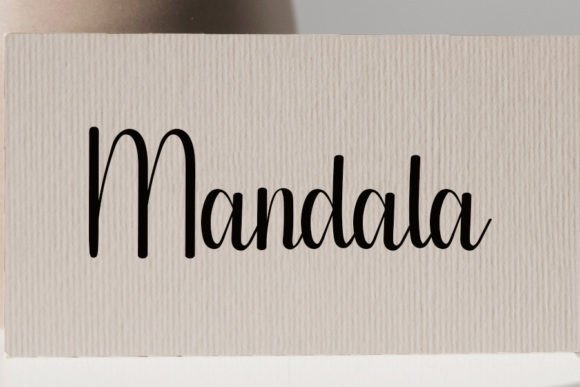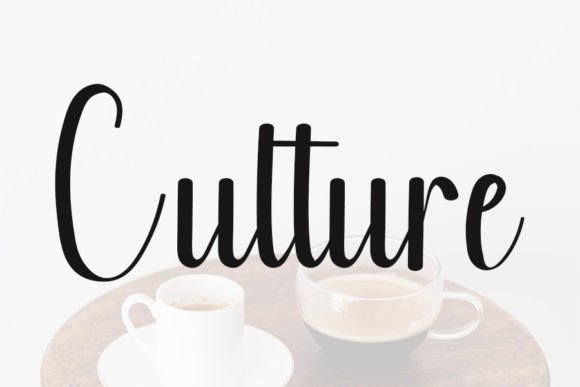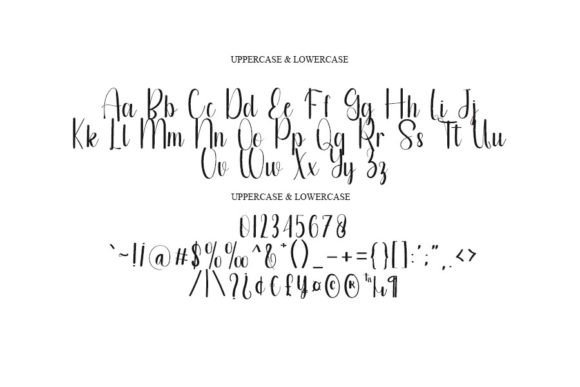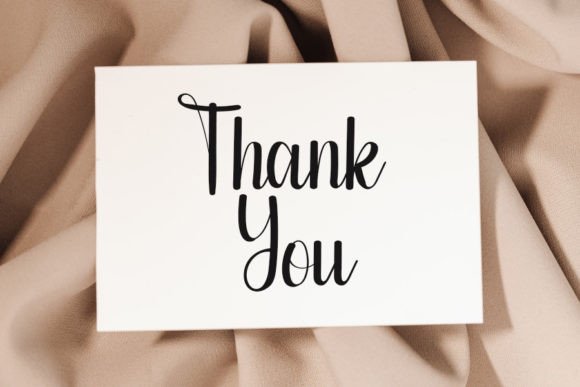
The Autography Font: A Modern Handwritten Style for Your Creative Projects
A Balanced and Versatile Font
Autography is a modern handwritten font inspired by classic calligraphy. Its balanced and varied strokes make it perfect for a wide range of creative projects, from branding and advertising to packaging and digital media. The font’s beauty lies in its ability to strike the perfect balance between being not too thin and not too thick, making it highly legible and visually appealing.
• ✨ Modern vibe: Autography has a fresh and contemporary feel that will elevate your designs and make them stand out.
• ✅ Spotless form: The font’s clean and precise strokes make it perfect for projects that require a high level of sophistication.
• 💯 Balanced and varied: Autography’s varied strokes and balanced design make it highly versatile and easy to use.
• 🤔 Limited use of ligatures: While Autography does come with some ligatures, they may not be as extensive as some other fonts.
• ⚠️ Not suitable for body text: Due to its elegant and cursive nature, Autography is best used for headlines, titles, and short paragraphs.
The Story Behind Autography
Autography was designed by a team of typographers who wanted to create a modern handwritten font that would capture the essence of classic calligraphy. Inspired by the elegant strokes and flowing lines of traditional calligraphy, Autography was crafted to be a versatile and elegant font that would add a touch of sophistication to any design project.
What is Autography? Autography is a modern handwritten font inspired by classic calligraphy, designed to add a touch of elegance and sophistication to your design projects.
Is Autography suitable for body text? No, Autography is best used for headlines, titles, and short paragraphs due to its elegant and cursive nature.
Does Autography come with OpenType features? Yes, Autography comes with a range of OpenType features, including stylistic alternates, glyphs, and ligatures.